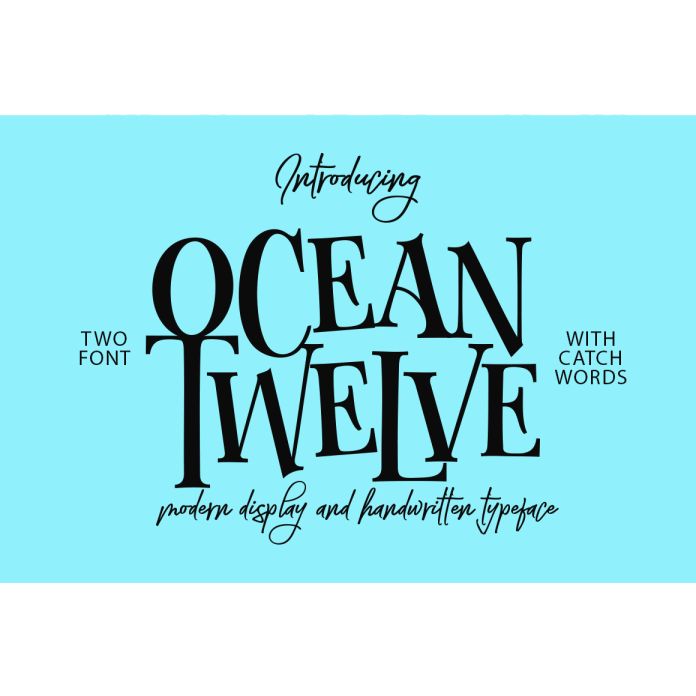
Ocean Twelve Fonts Duo , is a manual handwriting font with using a brush pen, which are arranged very neatly, so that it makes a font script, with a shape like a wavy calligraphy, modern, unique, smooth & cleans.
Bristan Script includes full set of gorgeous uppercase and lowercase letters, numerals, a large range of punctuation and variation ligatures. All lowercase letters include beginning and ending swashes, giving realistic hand-lettered style. And ready to make a statement by adding elegant and unique flair to your next design project. What you get, darling? Let's play around with these slightly unique letters to beautify your next product design. Make your graphic design
illustrations come true with Ocean Twelve Fonts Duo.